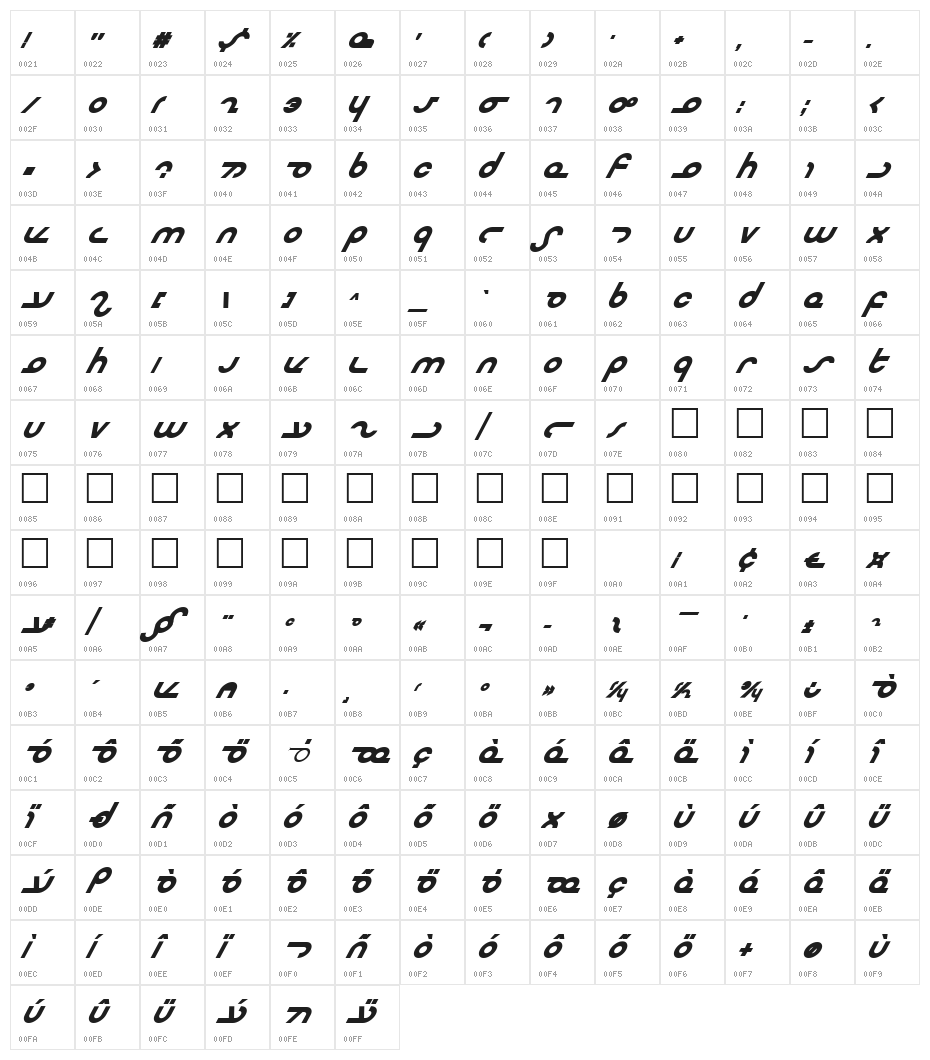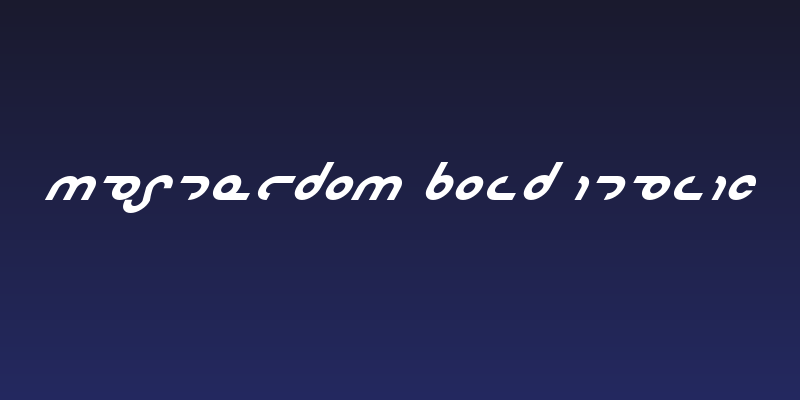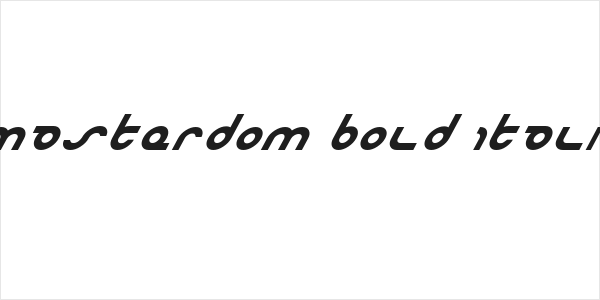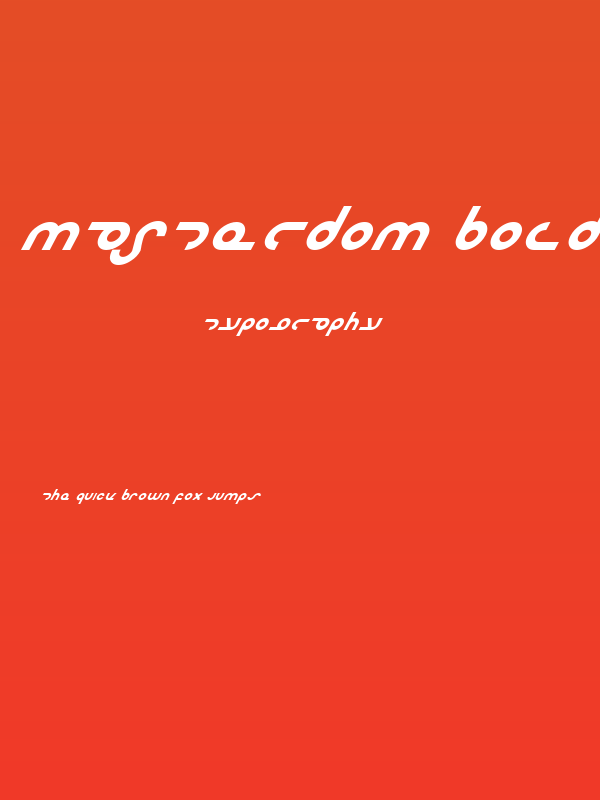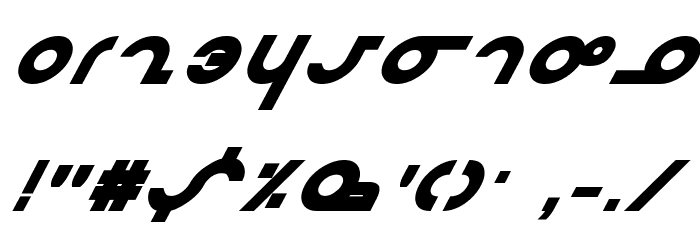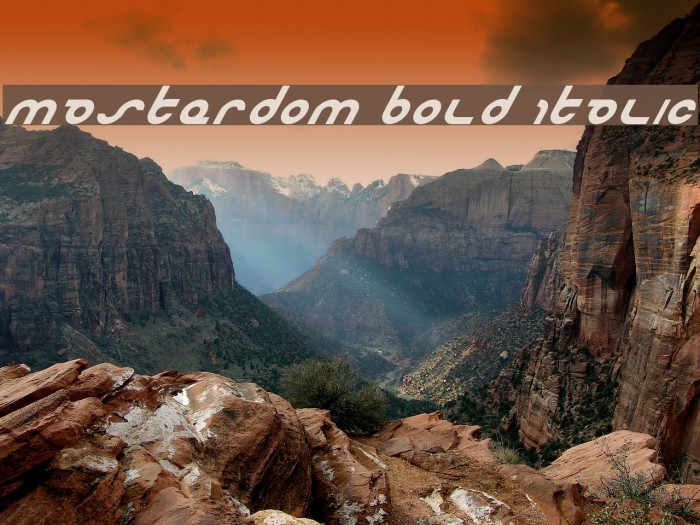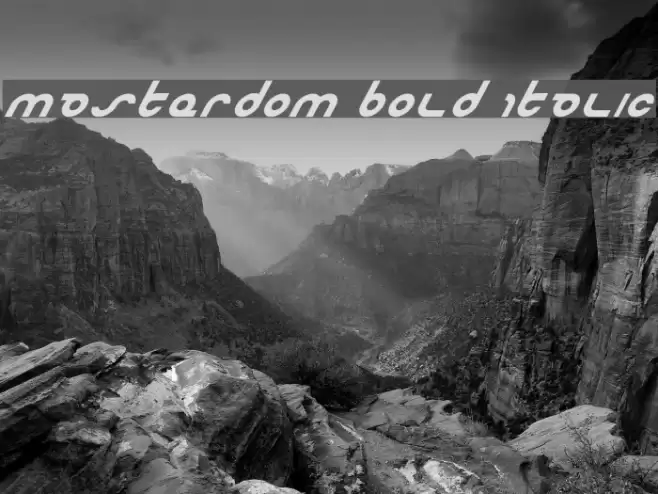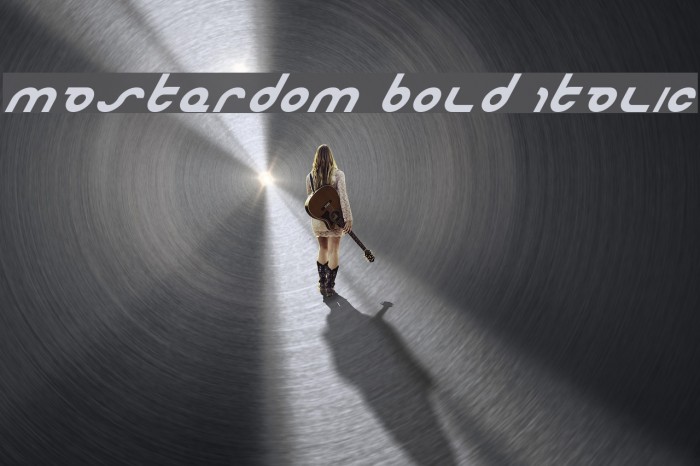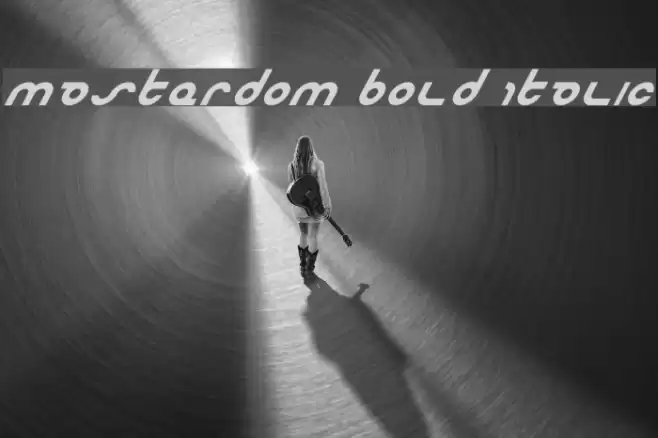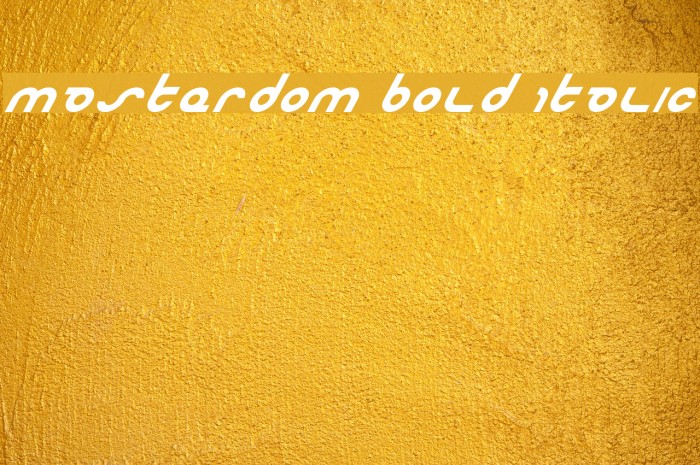
Masterdom Bold Italic Font
Masterdom Bold Italic Description
This font features a bold and italic style with a modern and dynamic appearance. The characters are designed with a forward slant, enhancing the sense of motion and energy. The strokes are thick and consistent, providing a strong visual impact. The overall design is sleek and contemporary, making it suitable for projects that require a bold statement. The characters are well-spaced, ensuring readability while maintaining a cohesive look. The font includes a full set of uppercase and lowercase letters, numbers, and a variety of special characters, making it versatile for various design needs.
| Use Case | Headlines, Logos, Branding |
| Proposed Projects | Ideal for branding, advertising, headlines, and any project needing a strong, modern aesthetic. |